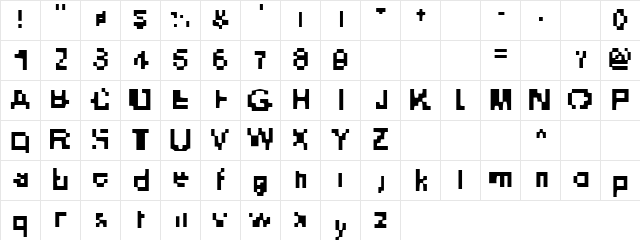
Complete Heliosphere Regular glyph index. Displaying only characters natively supported by Heliosphere Regular font.
Heliosphere is a composed and adaptable typeface that performs quietly and consistently across a wide range of design contexts.